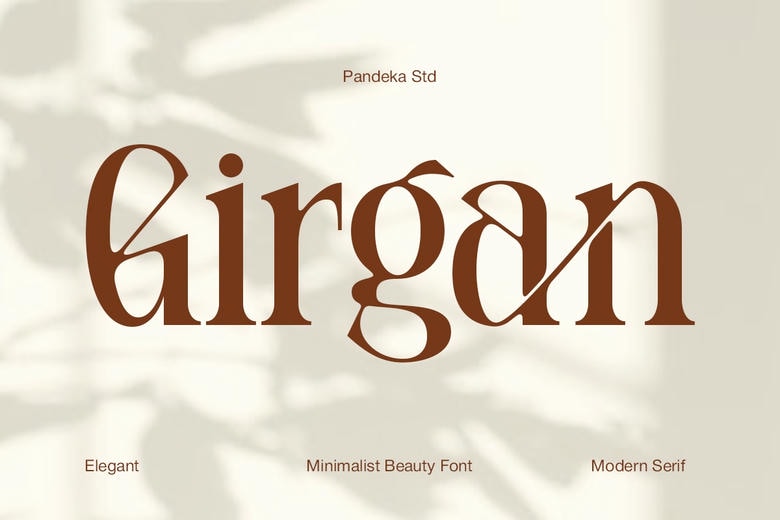
Girgan is a stunning Modern Serif font, and it is tailored to represent a sleek minimalism and the luxury of the affluent world, so it can be the best solution to the refined aesthetics of visual branding. It is an arresting combination of traditional serif and modern, therefore extremely stylized, curves and flourishes. The typeface is defined by a high degree of verticality, moderate contrast, as well as memorable, unique, decorative swashes and fancy terminals (particularly, the ones on the G and the r).
These formalized components convert the basic words to customized, high-end logotypes. Girgan is ideal in cosmetics and beauty branding, high-fashion editorial, high-end product packaging, and exquisite stationery, giving it an immediate dose of opulence and elegance. The characteristic of this font is that being both clean and minimal, it still has the characteristic flourishes, ornate and eloquent, so that your brand name stands out as as timelessly sophisticated and distinctly memorable.
Its elegant curves and elegant letterforms give it an elegant but confident personality that is befitting of beauty brands, editorial design, packaging, and other lifestyle projects. This typeface is available in 1 style Regular, which includes uppercase, lowercase, numerals, punctuation, and 26 + gorgeous ligatures to create cool and natural typography. Ideal with developing classical logos, magazines, cosmetics brands, and fancy image identities.